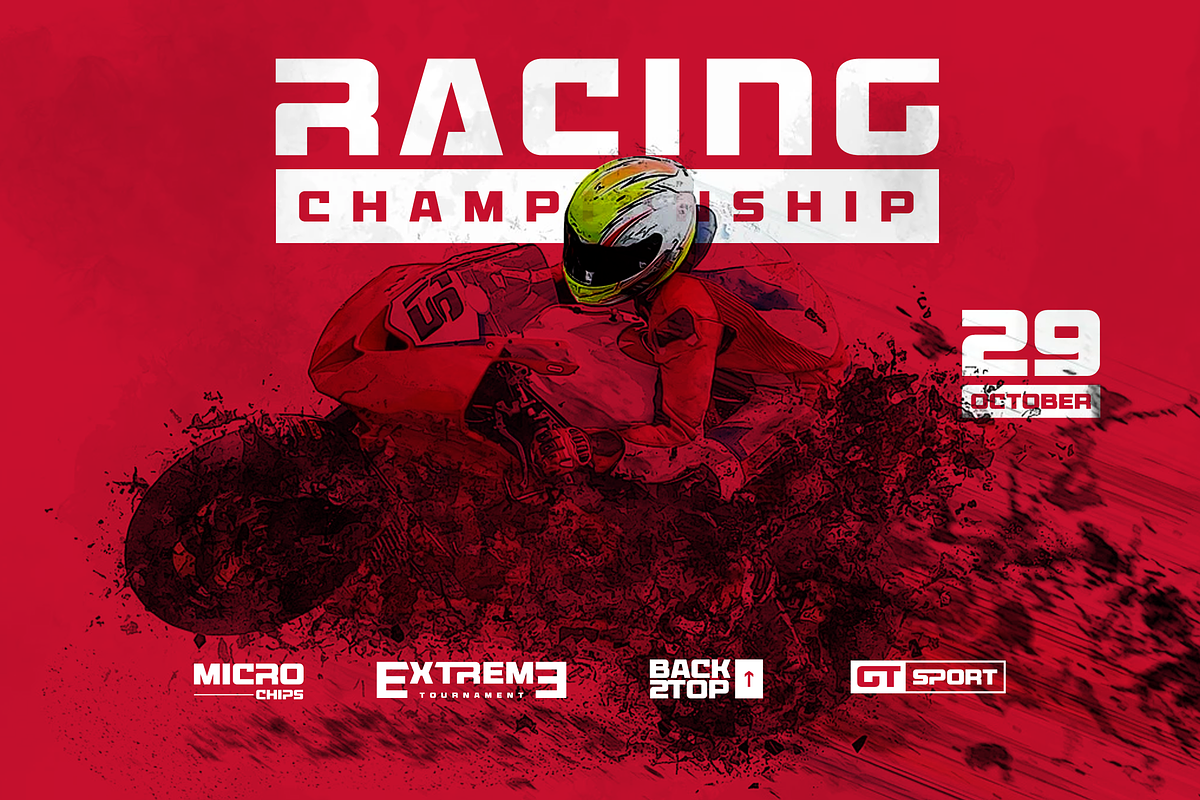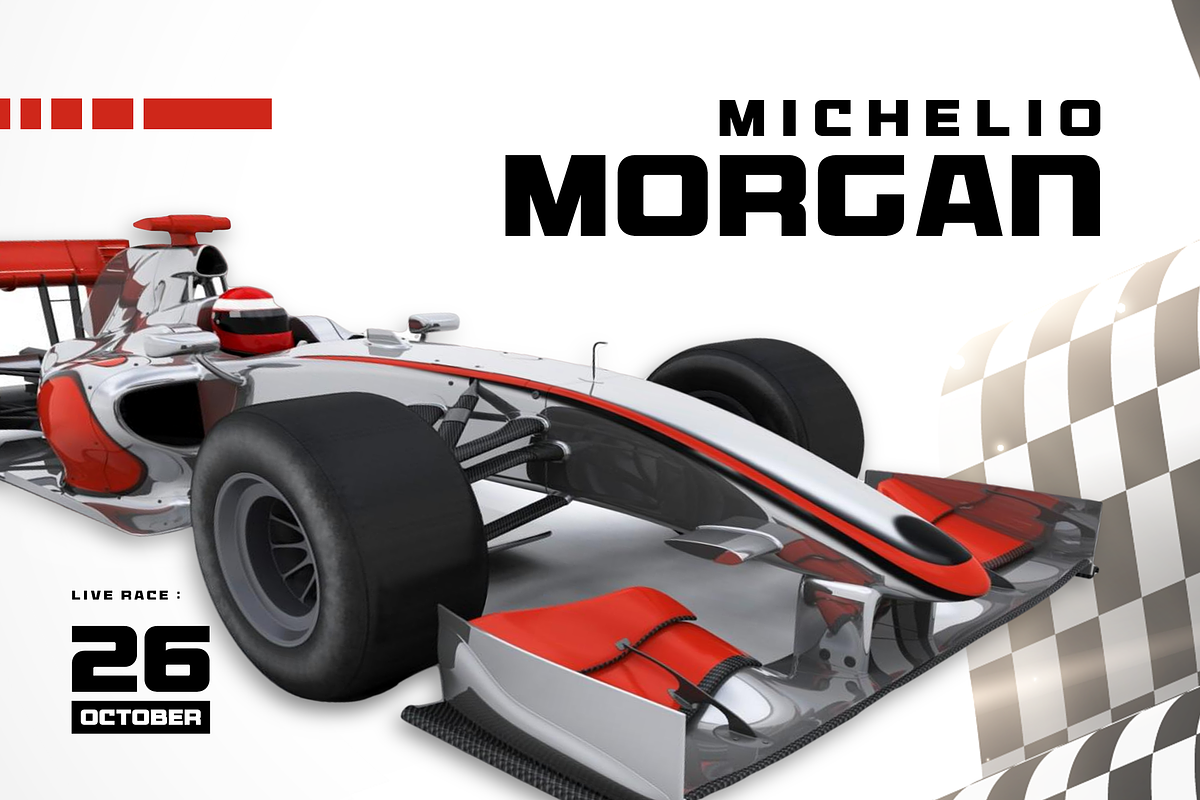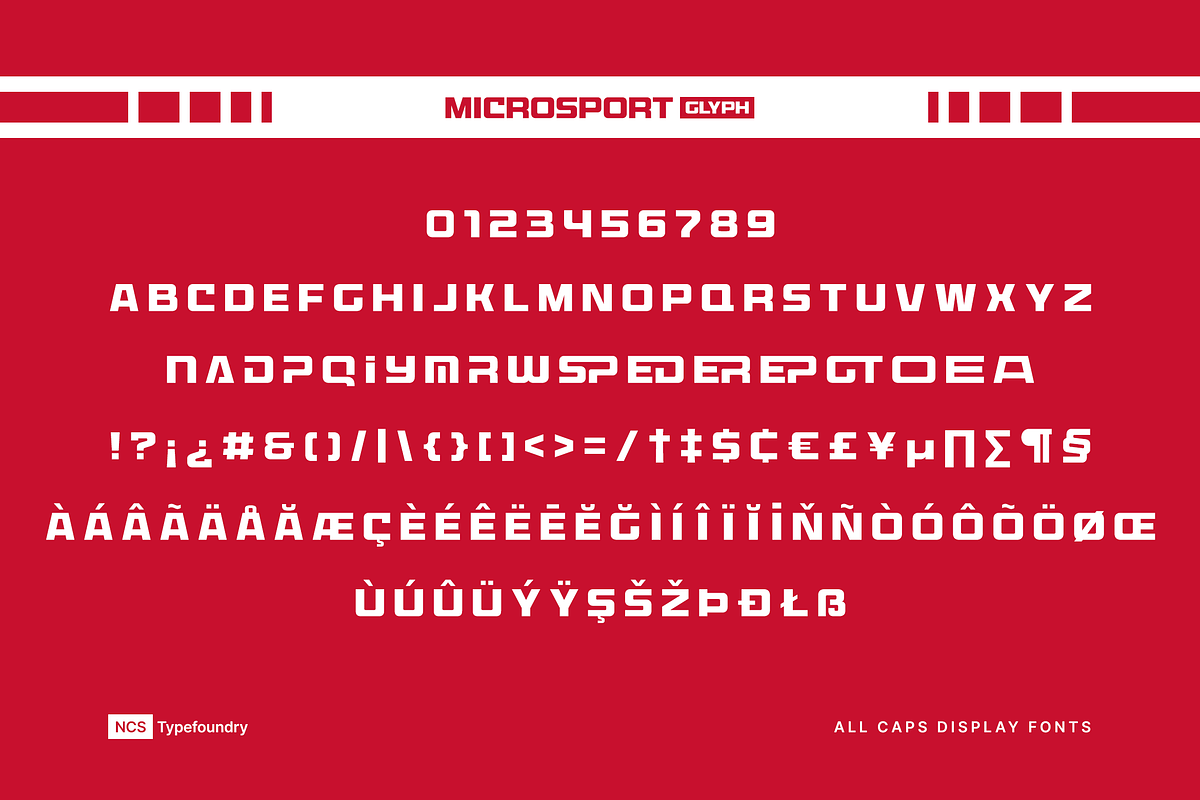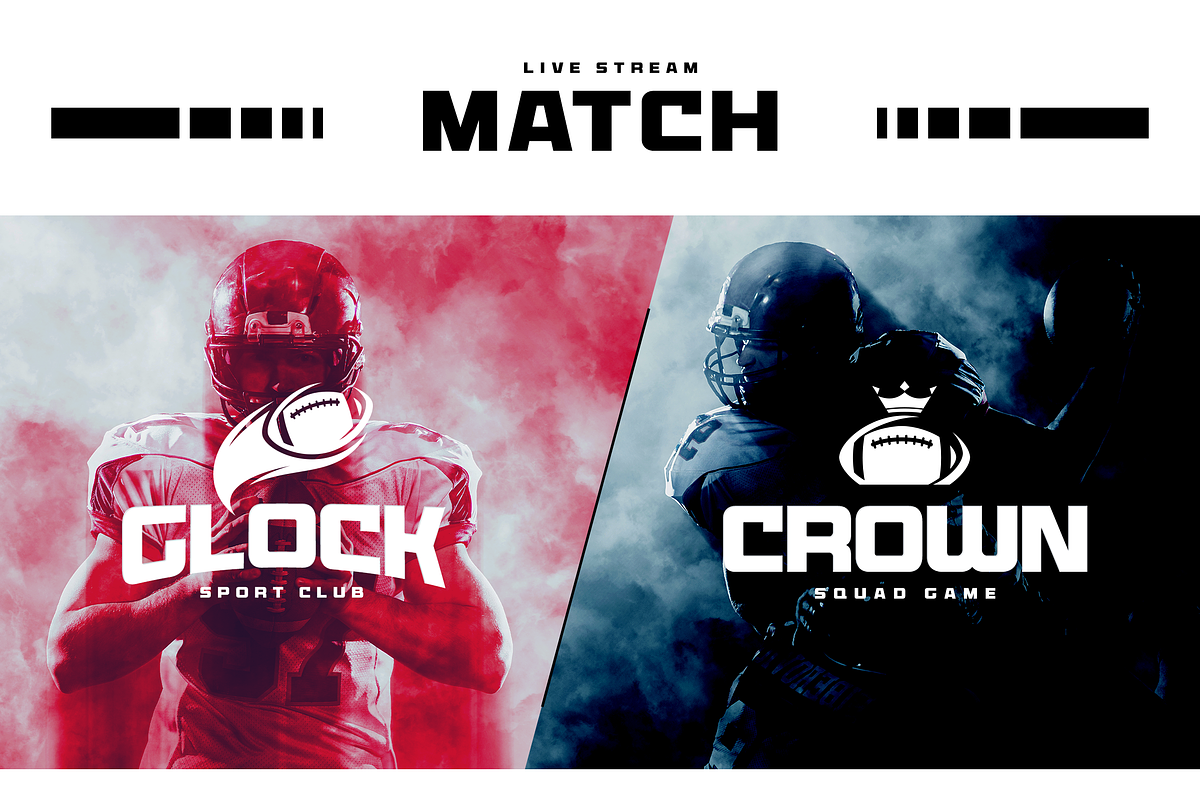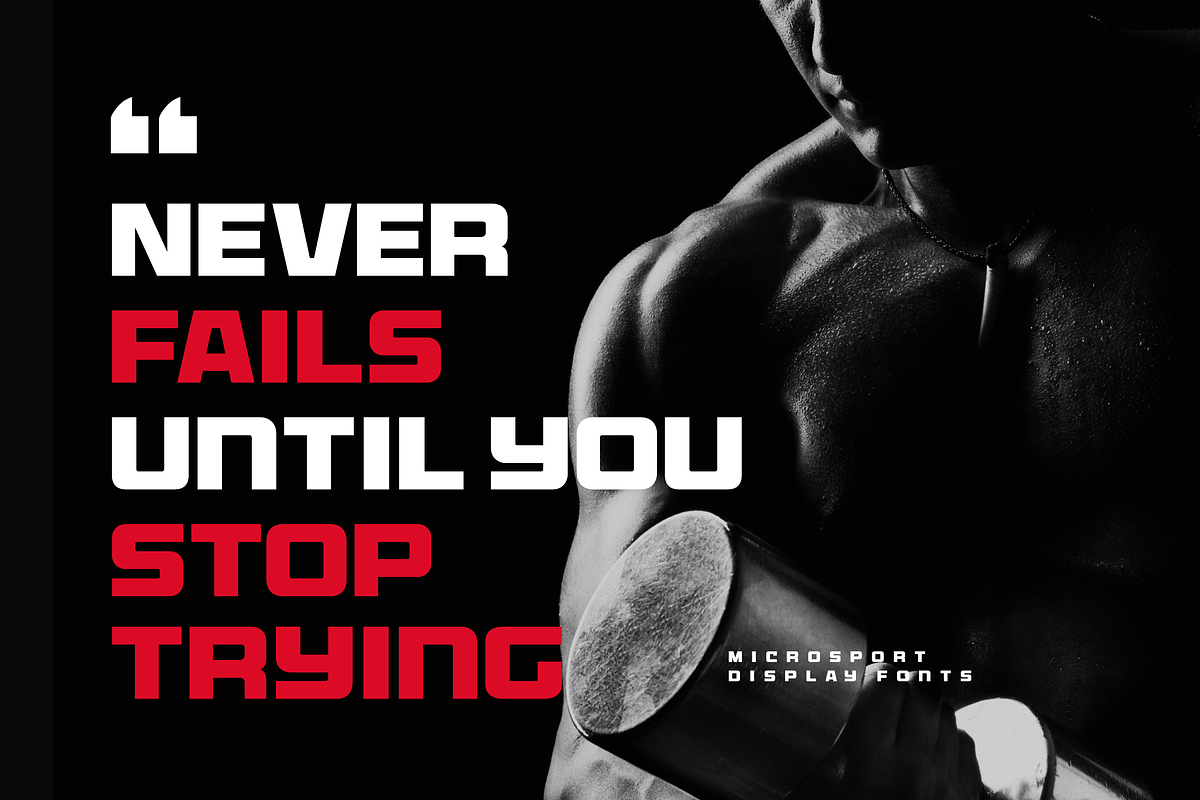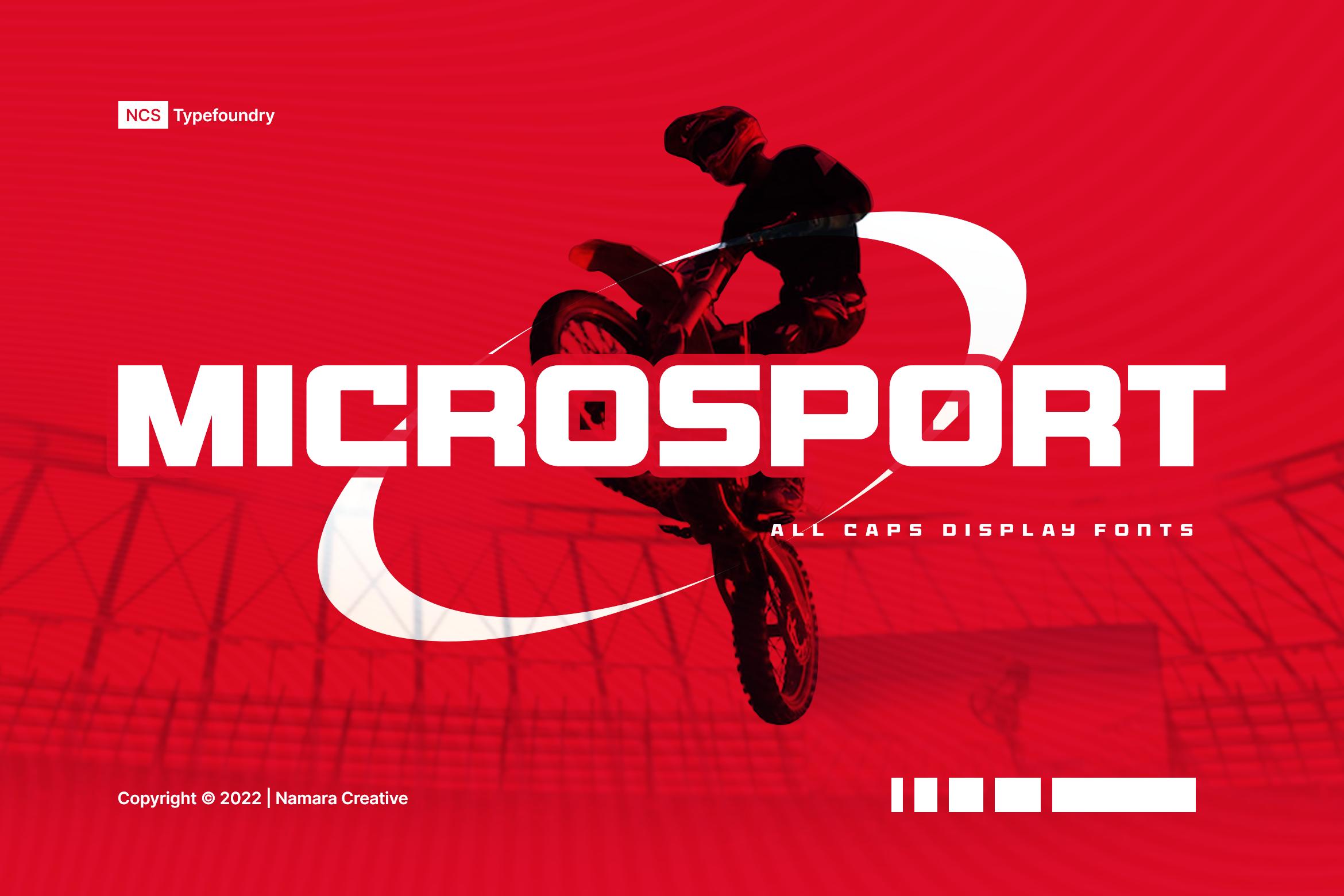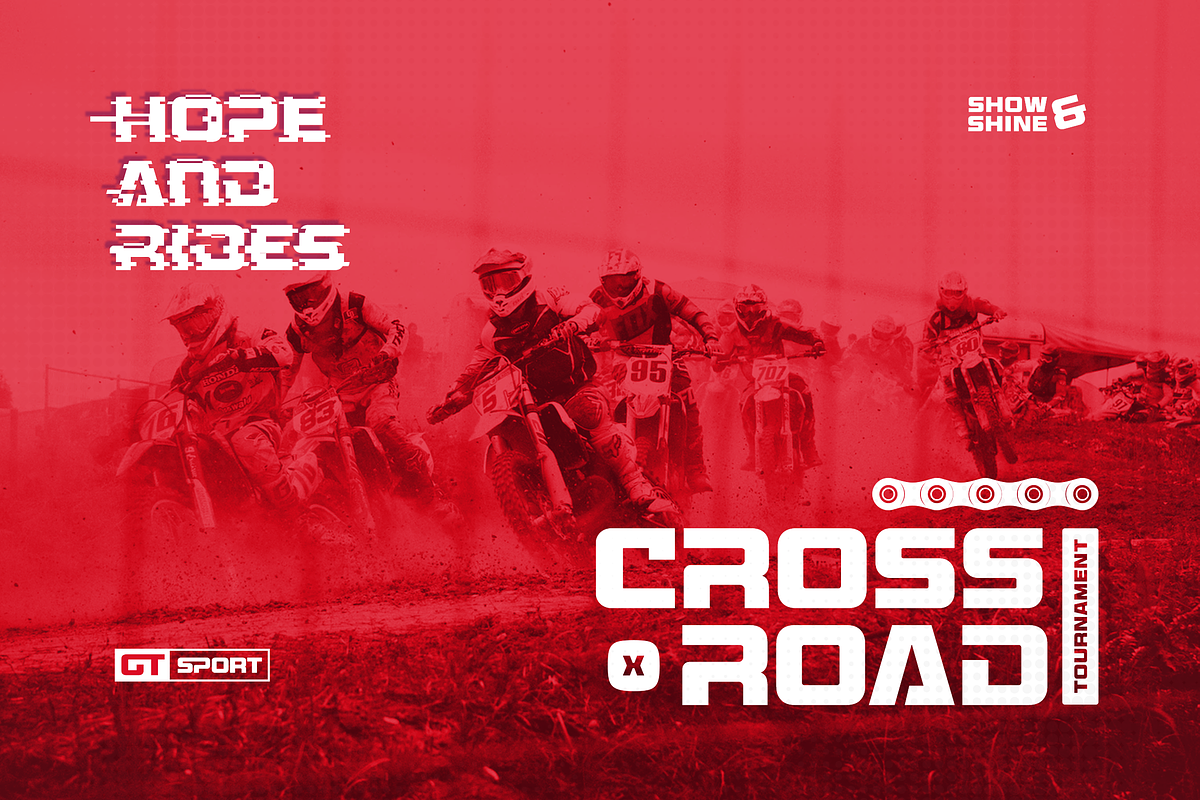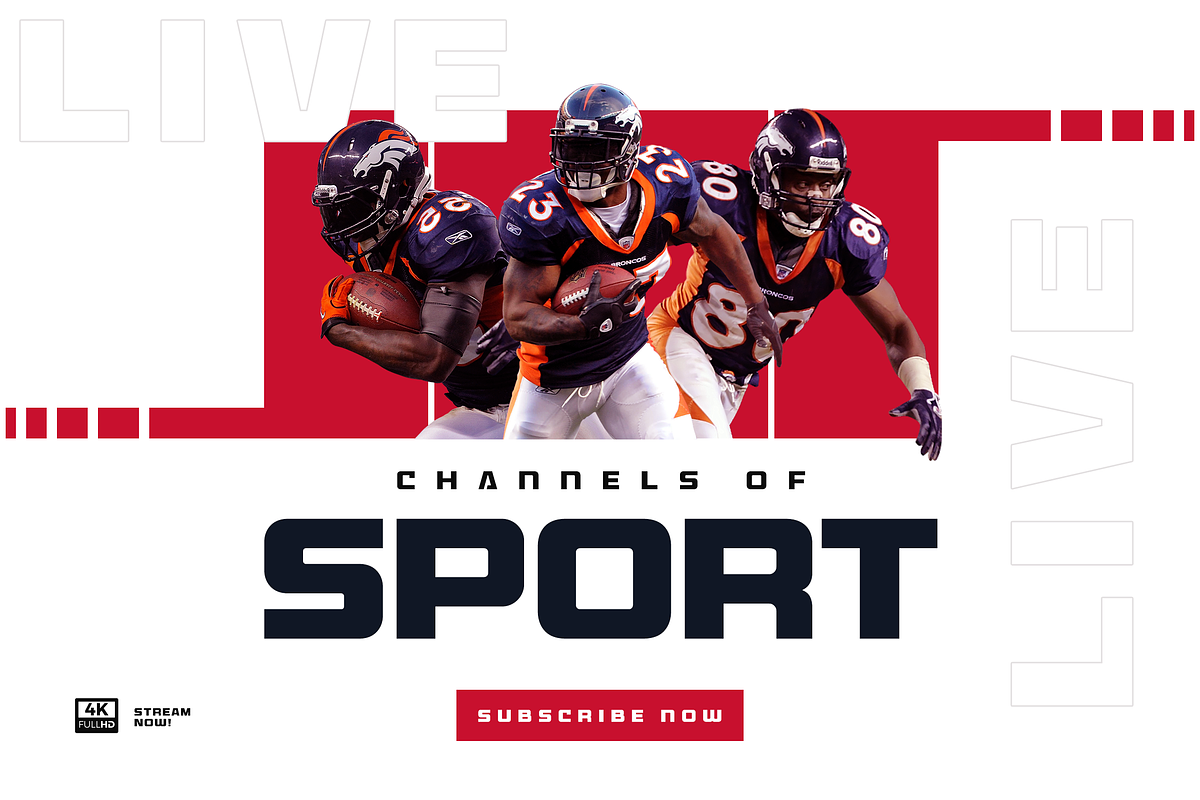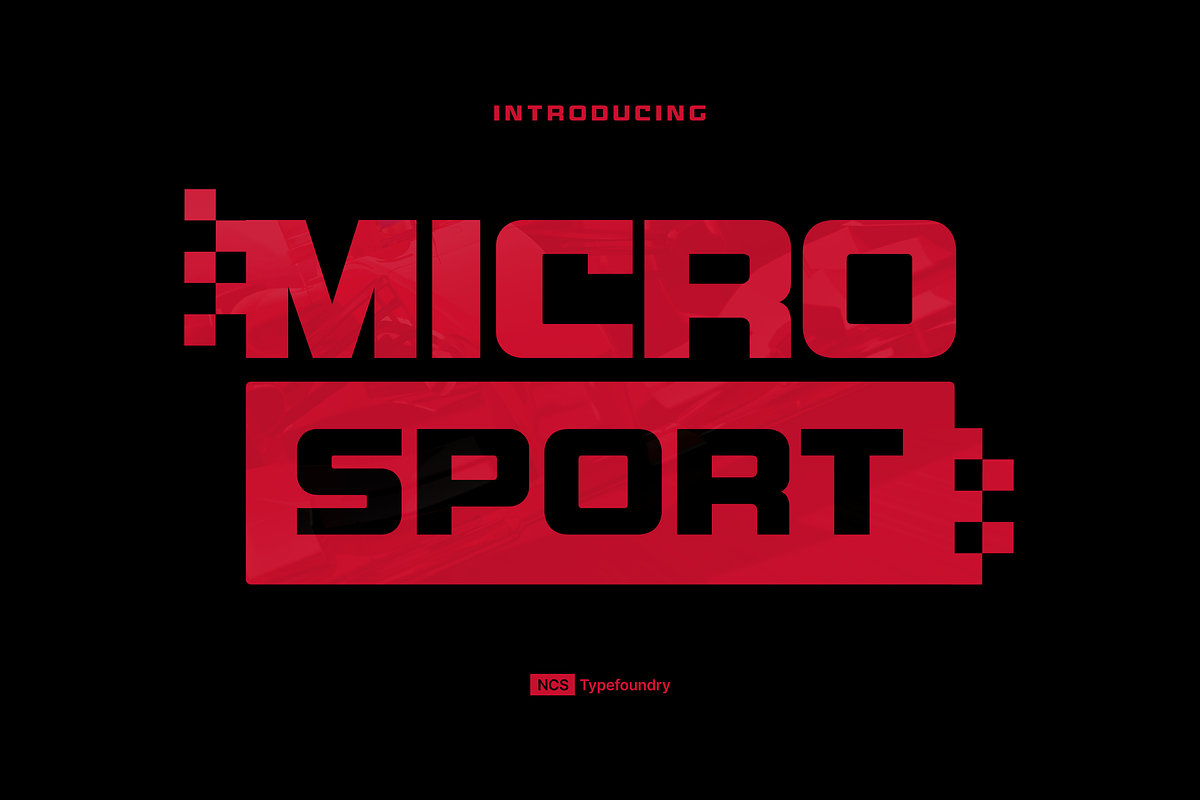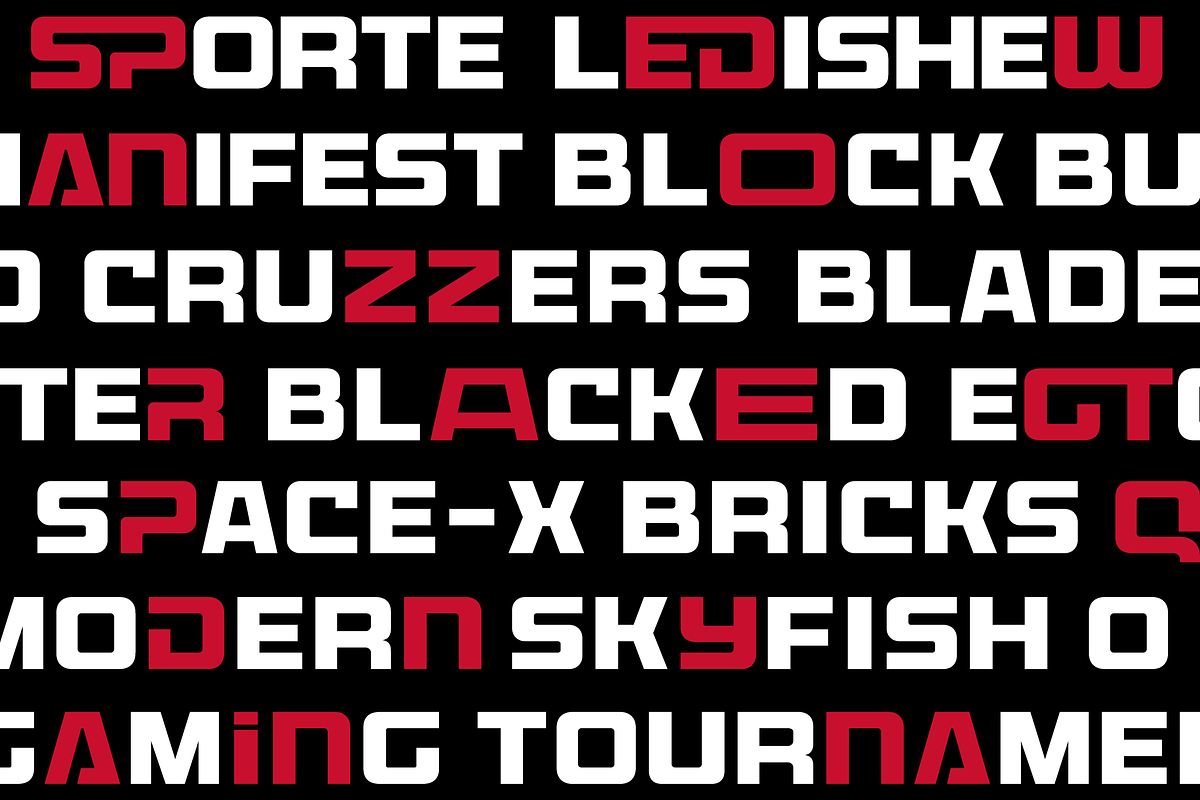
Microsport Bold Display Fonts
Bring strong atmosphere in modern style for your projects. This font perfect for headline, general advertising, packaging, sport logo / branding and another marketing material on many other platforms.
- Microsport Regular
- Microsport Italic
- Microsport Bold
- Microsport Bold Italic
- Microsport Rounded
- Microsport Outline
- Alternates, Ligatures & Multilingual Support
- Modern, Sporty & Techno Theme Font
- Almost 300+ Glyphs